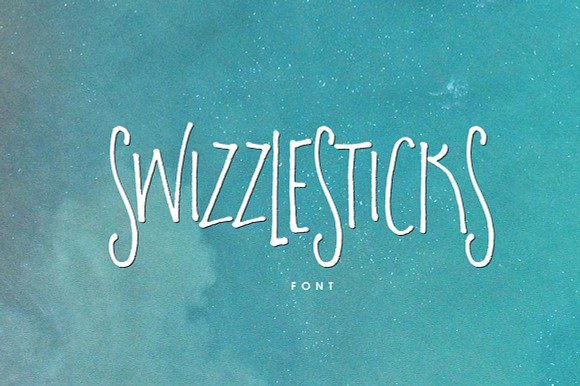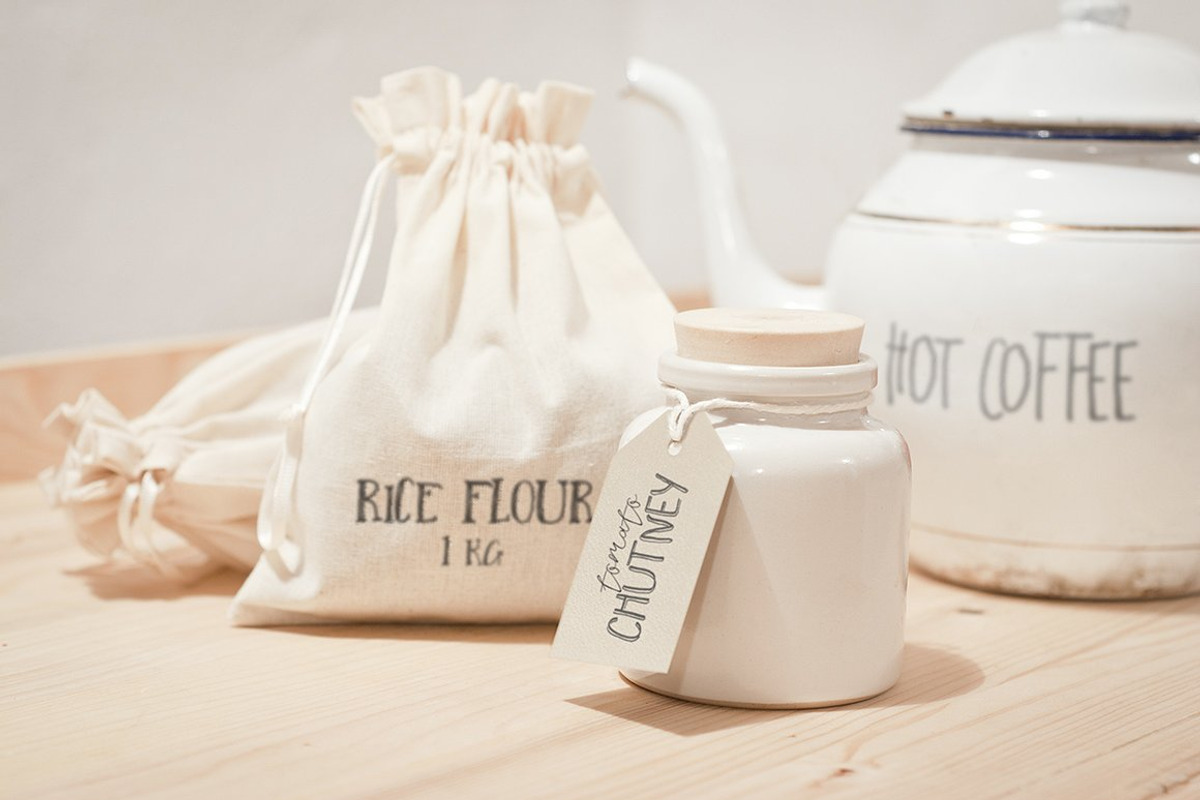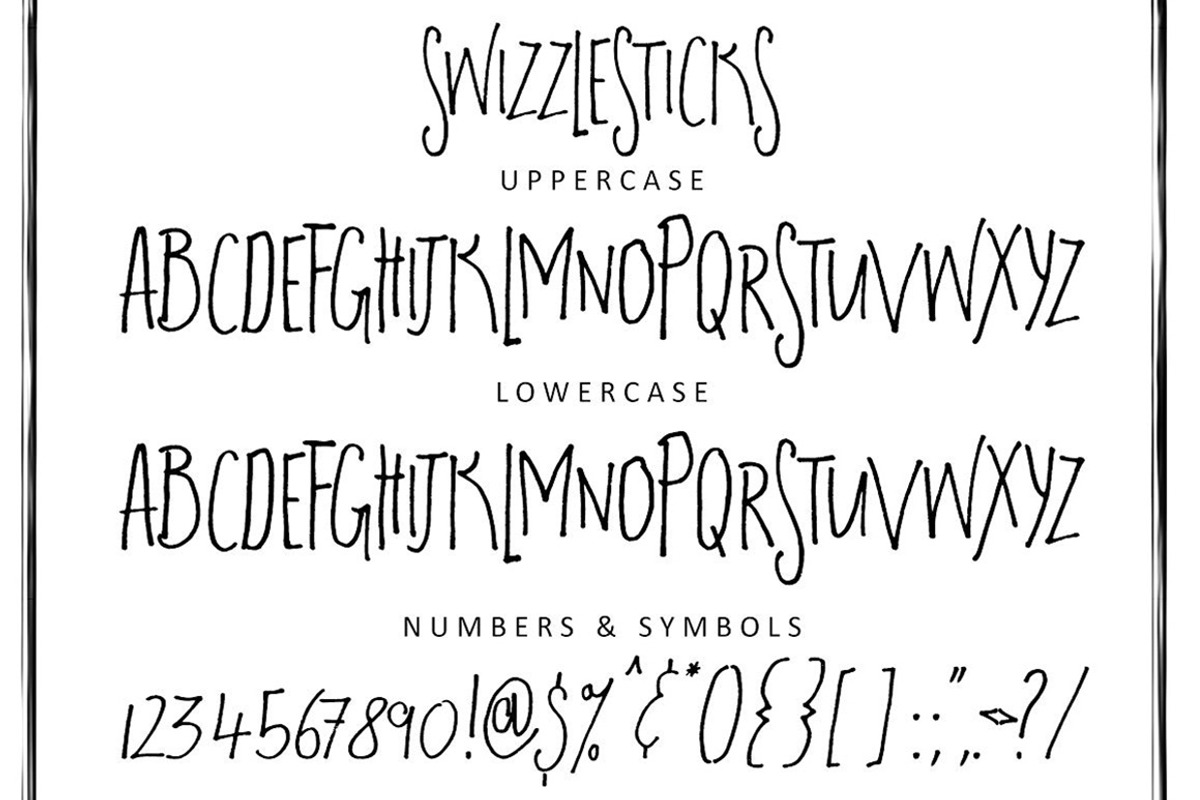
Swizzlesticks Font
This is Swizzlesticks. A slim hand drawn marker font with attitude. This font is part of the Big Bunch of Fonts Volume 1 here
Why Swizzlesticks Font is worth a look
Swizzlesticks Font by Creativeqube Design fits naturally into Branding, posters, packaging, typography.